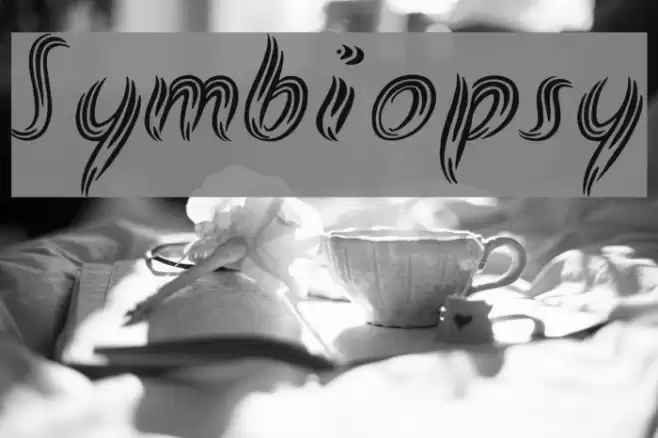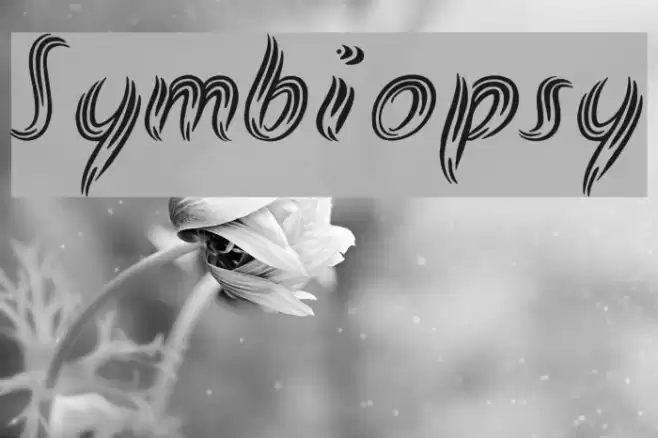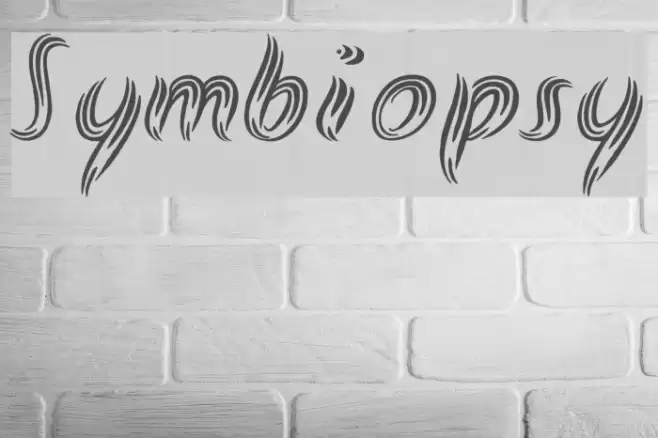
Symbiopsy Font
Symbiopsy Description
This font features a dynamic and artistic design with a brush-like texture that gives each character a sense of movement and energy. The strokes are bold and expressive, creating a sense of fluidity and rhythm. The uppercase and lowercase letters maintain a consistent style, with exaggerated curves and sharp edges that add a dramatic flair. The numbers and special characters follow the same aesthetic, ensuring a cohesive look across all elements. This font is ideal for projects that require a bold and artistic touch, making it perfect for creative and expressive designs.
A dynamic, brush-like font with bold, expressive strokes and a sense of movement from Uncategorized fonts.
- Proposed Projects: Ideal for artistic posters, creative branding, expressive headlines, and unique logo designs.
- Contrast: High
- Use Case: Headlines, Logos, Artistic projects